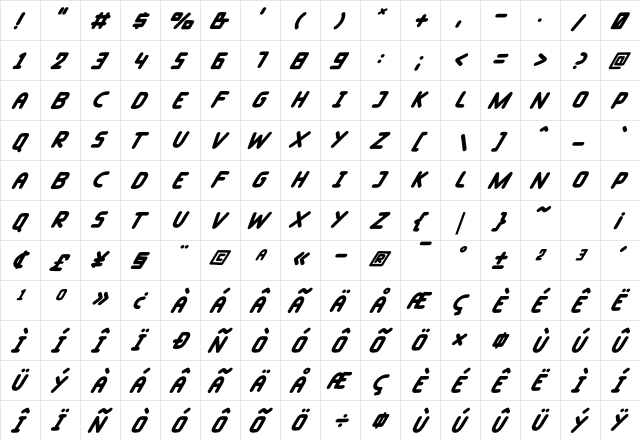
Taylorsit Italic Regular
Design Context for Taylorsit Italic Typeface
Taylorsit Italic is a composed and adaptable typeface that performs quietly and consistently across a wide range of design contexts. The dynamic lean of this cut emphasises speed and emphasis in any layout.
Pro Tip: Try Taylorsit Italic for annotation and caption copy alongside an upright companion — the contrast in angle creates a dynamic but ordered typographic system.